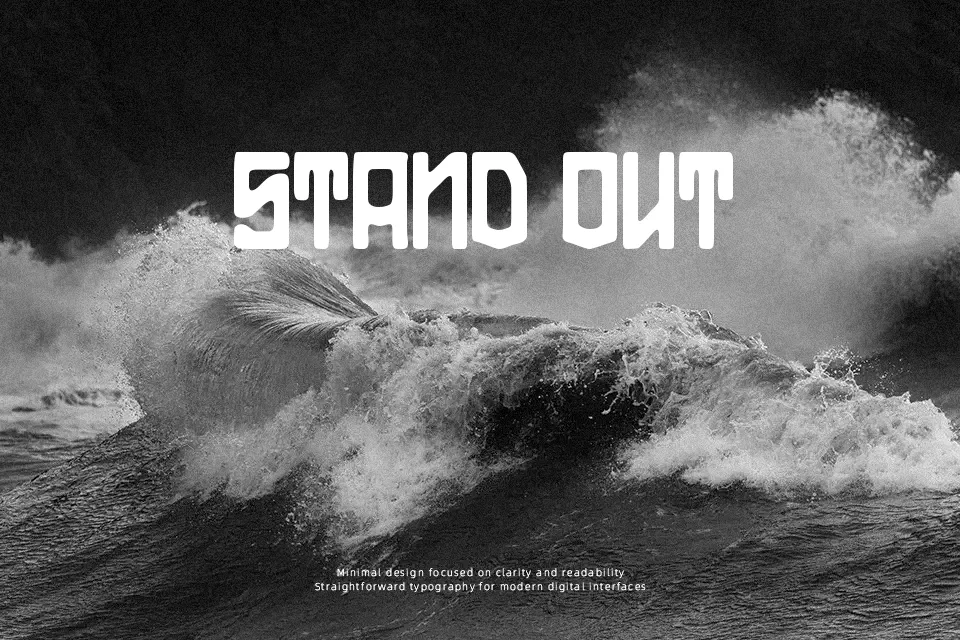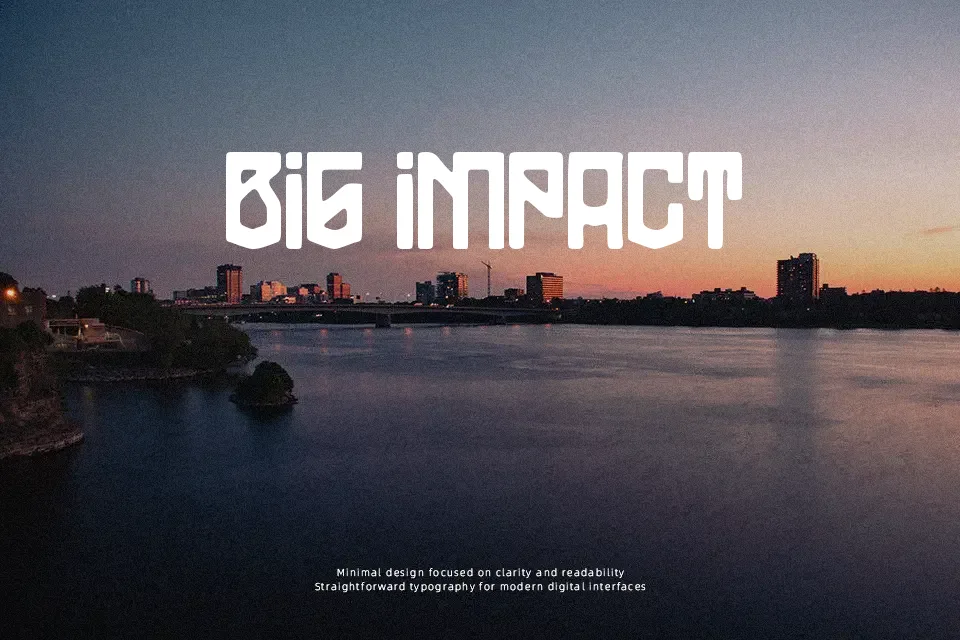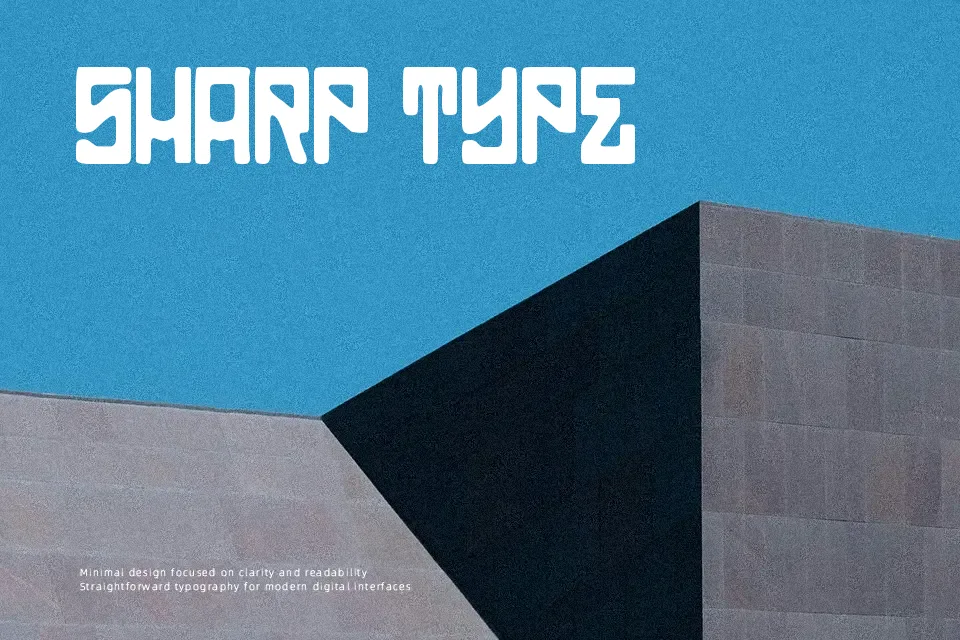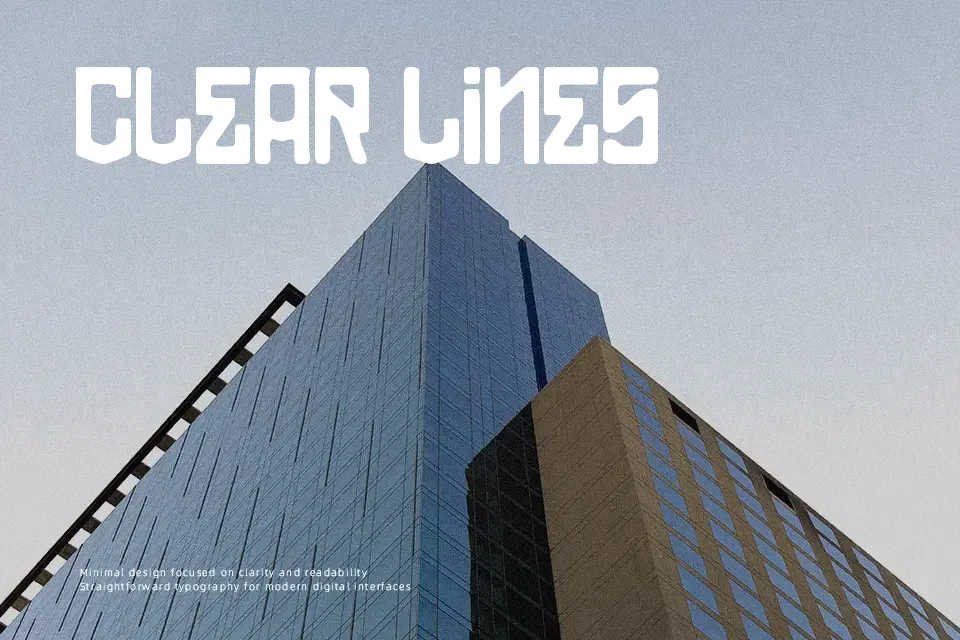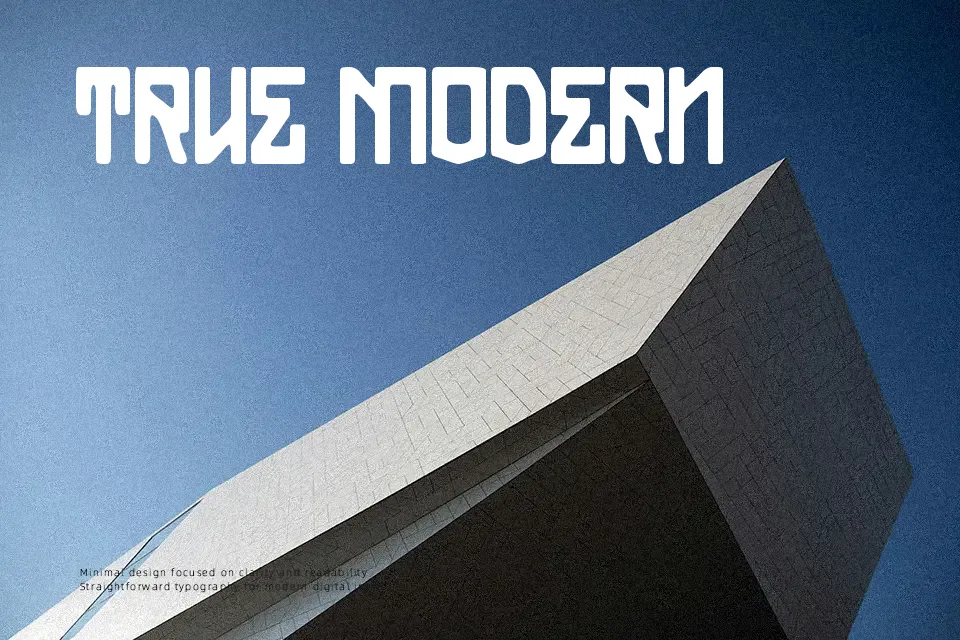
The Modern Pirates! Font
Designed by Izallazi
The Modern Pirates! Font introduces a bold display typeface defined by thick strokes, heavy silhouettes, and punchy decorative proportions. Its solid geometry and relatively tight spacing maximize visual weight, making the typeface instantly noticeable in short titles and graphic headers. The letterforms maintain distinct outlines when set at larger display scales, though the dense shapes significantly reduce comfort during continuous reading. For optimal impact, the design excels in short bursts across posters, game titles, and themed merchandise where strong contrast is required, whereas delicate layouts or running copy quickly expose its limitations.
themed apparel graphics
event poster headers
gaming title cards
merchandise packaging
editorial body copy
Perfect for branding, gaming, and headline, with a bold and decorative style.